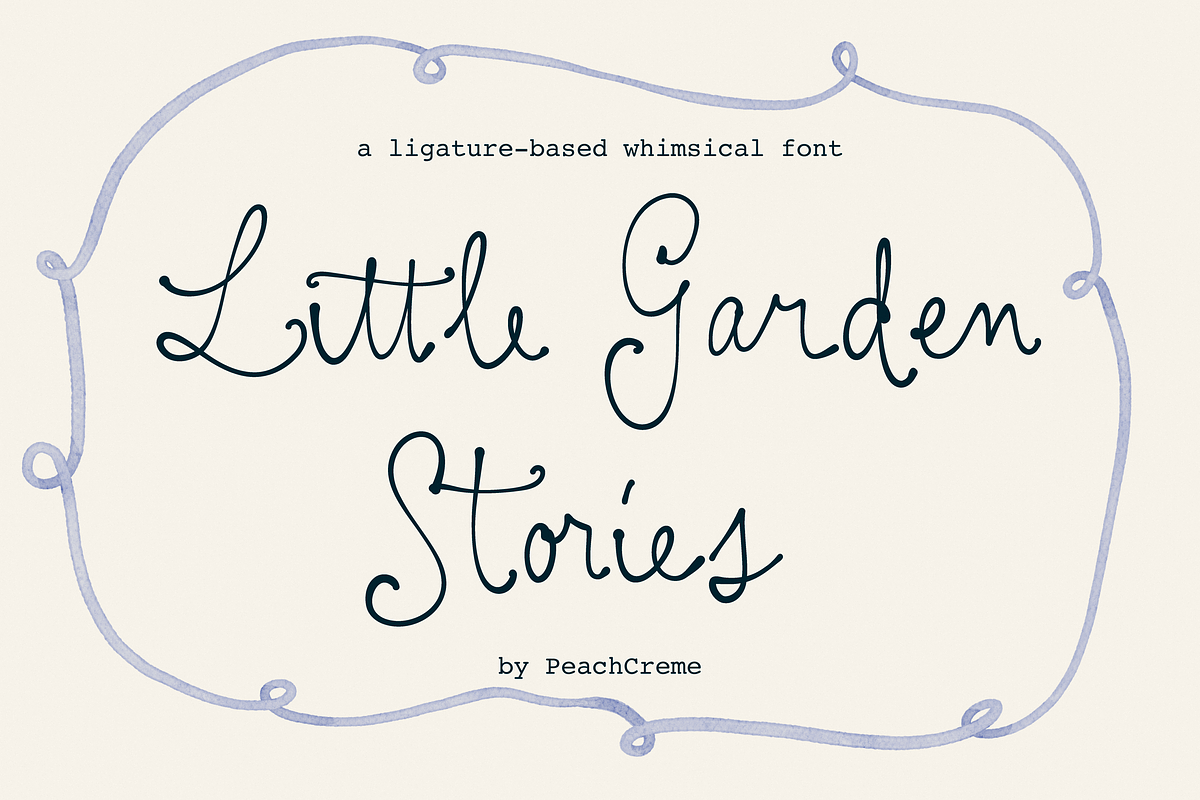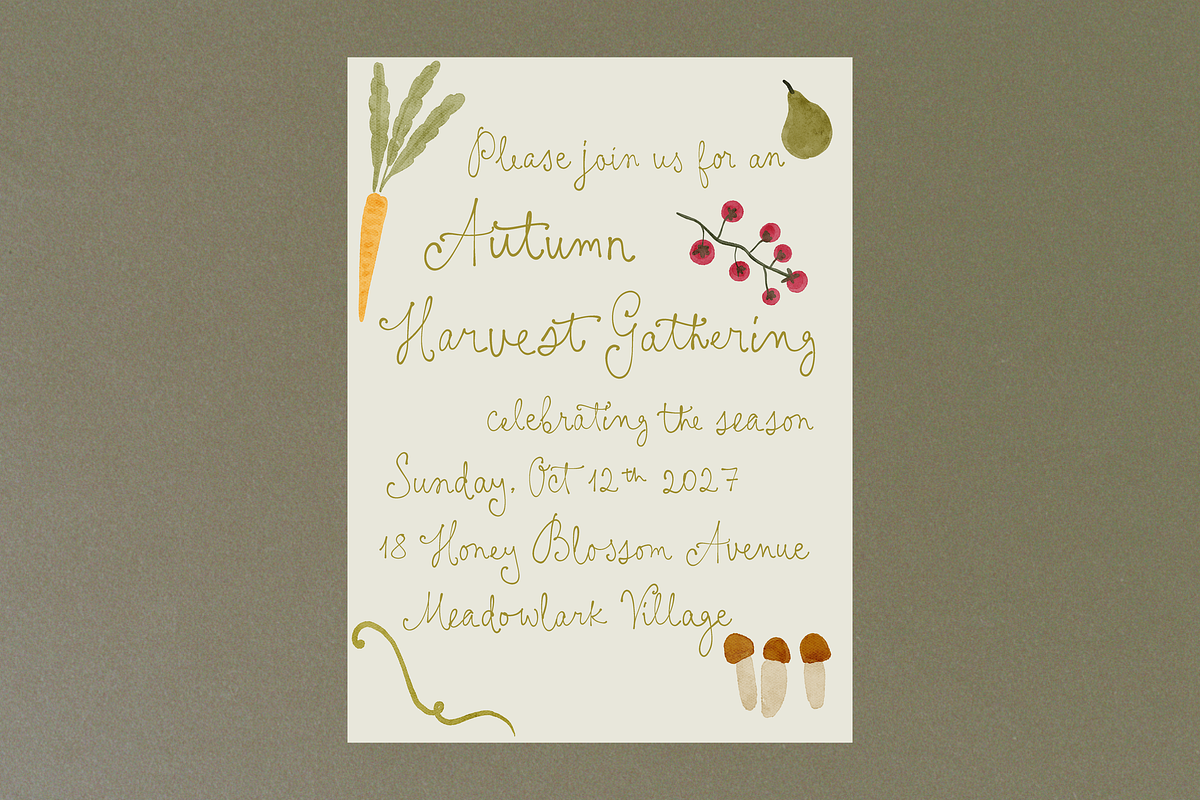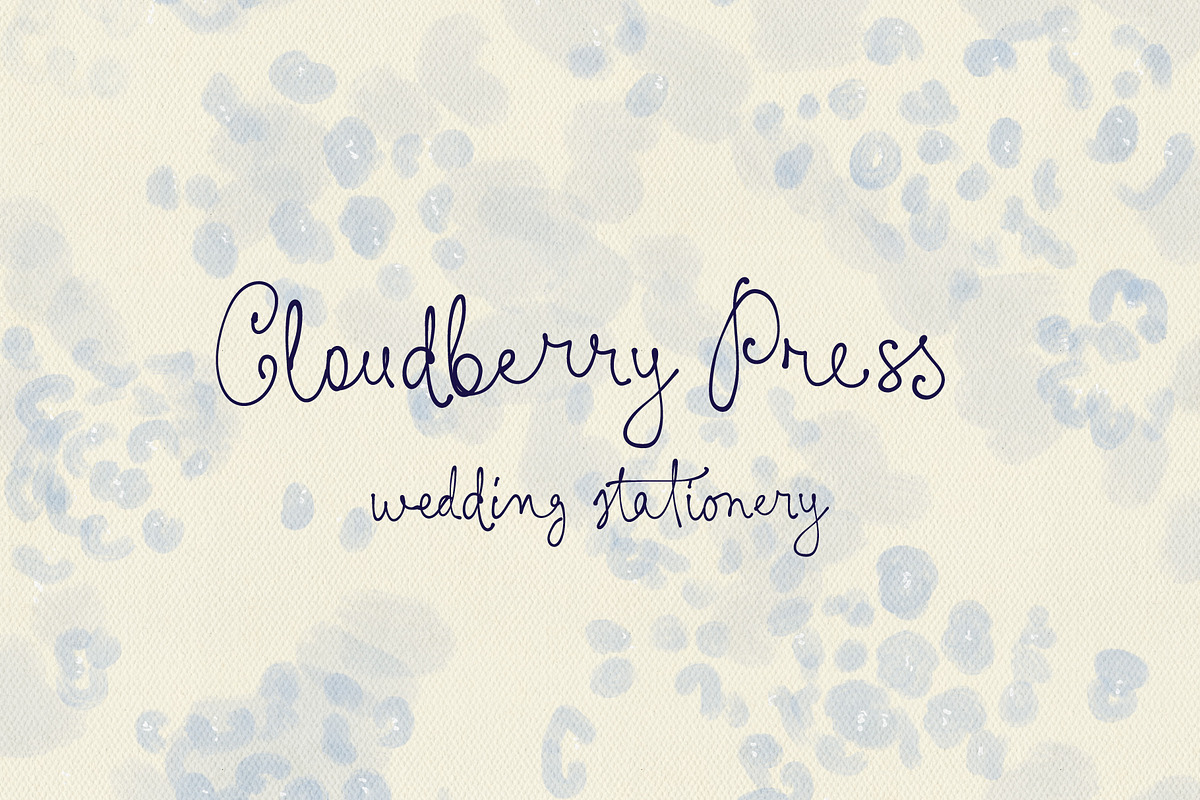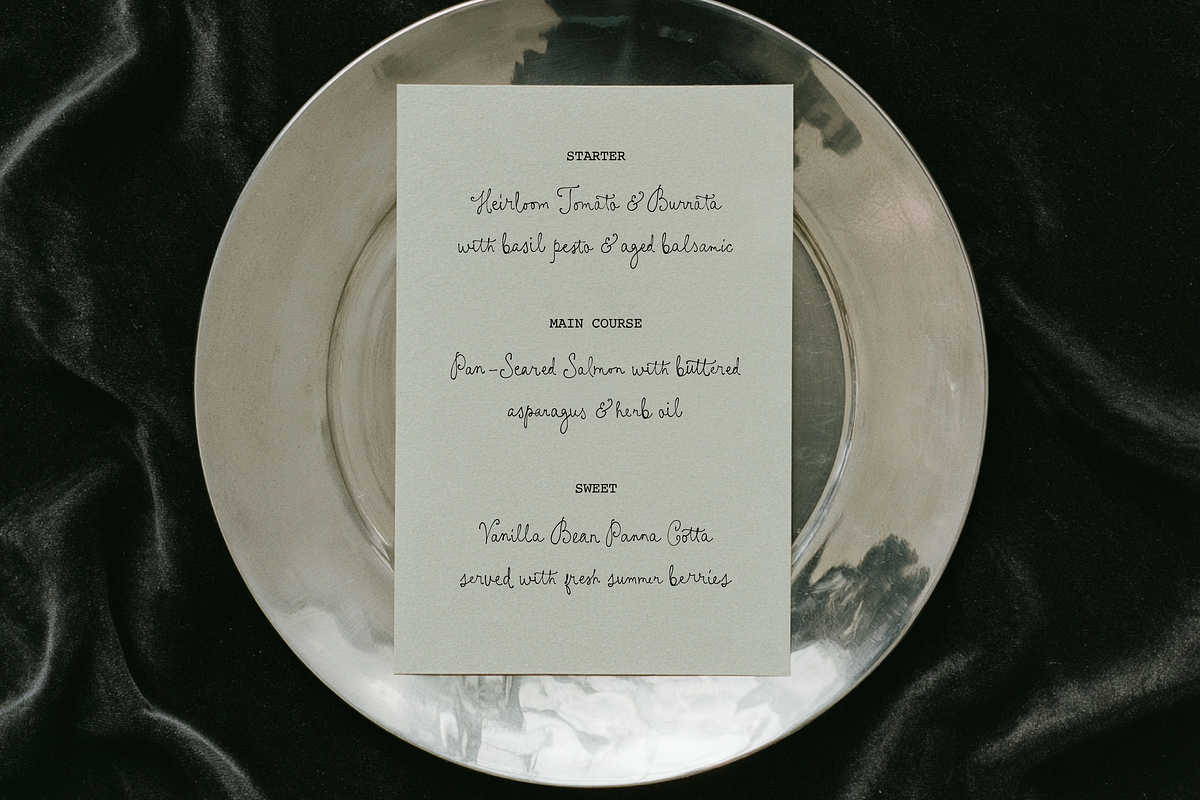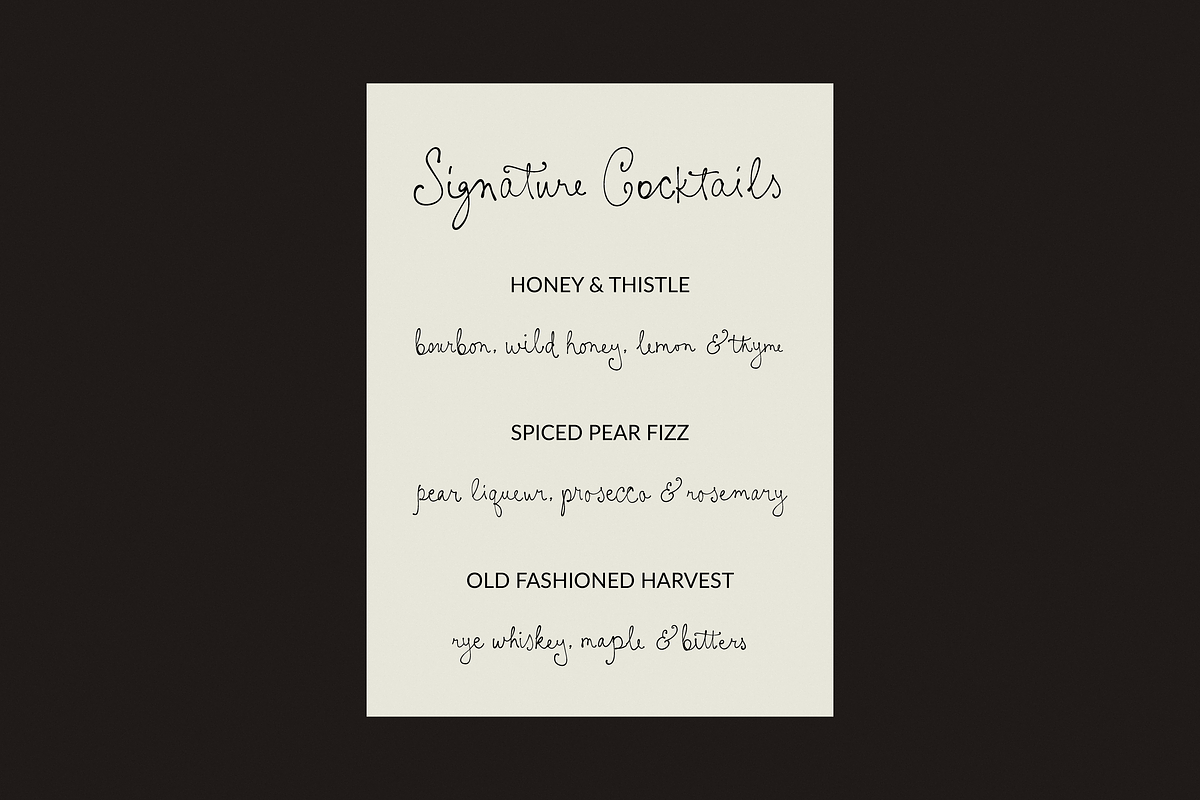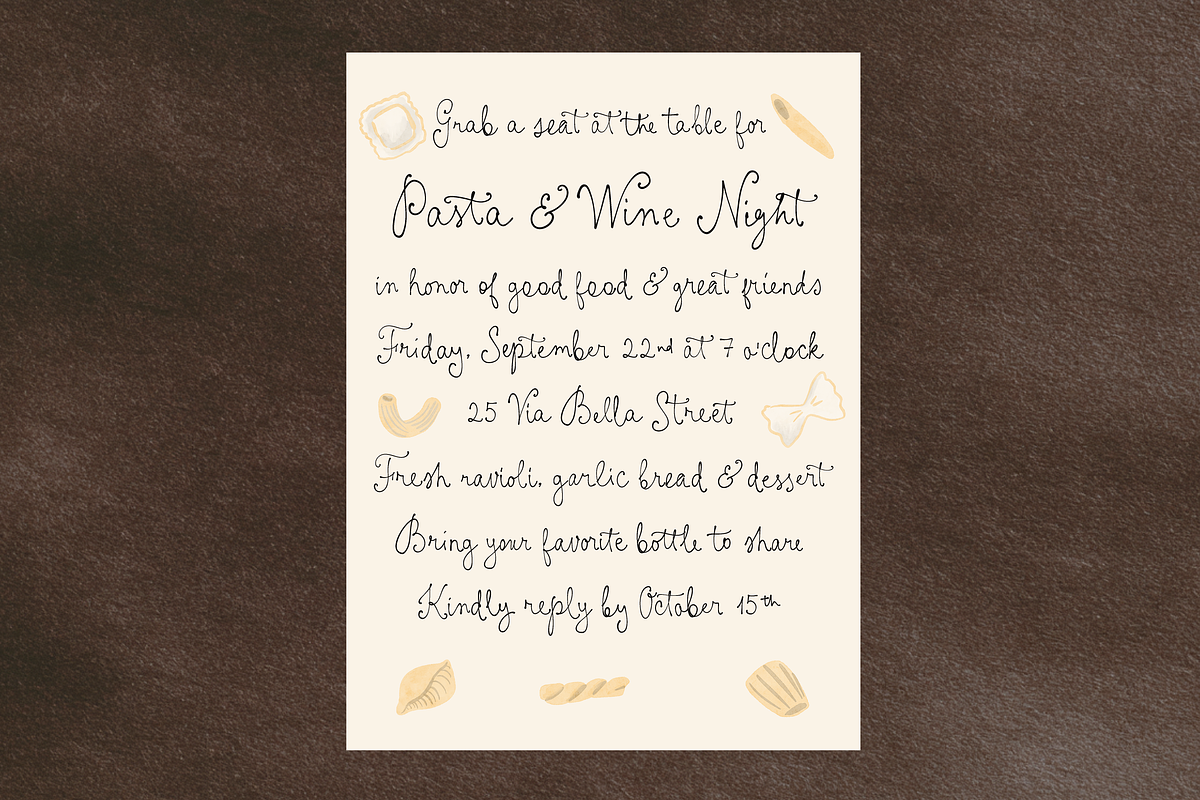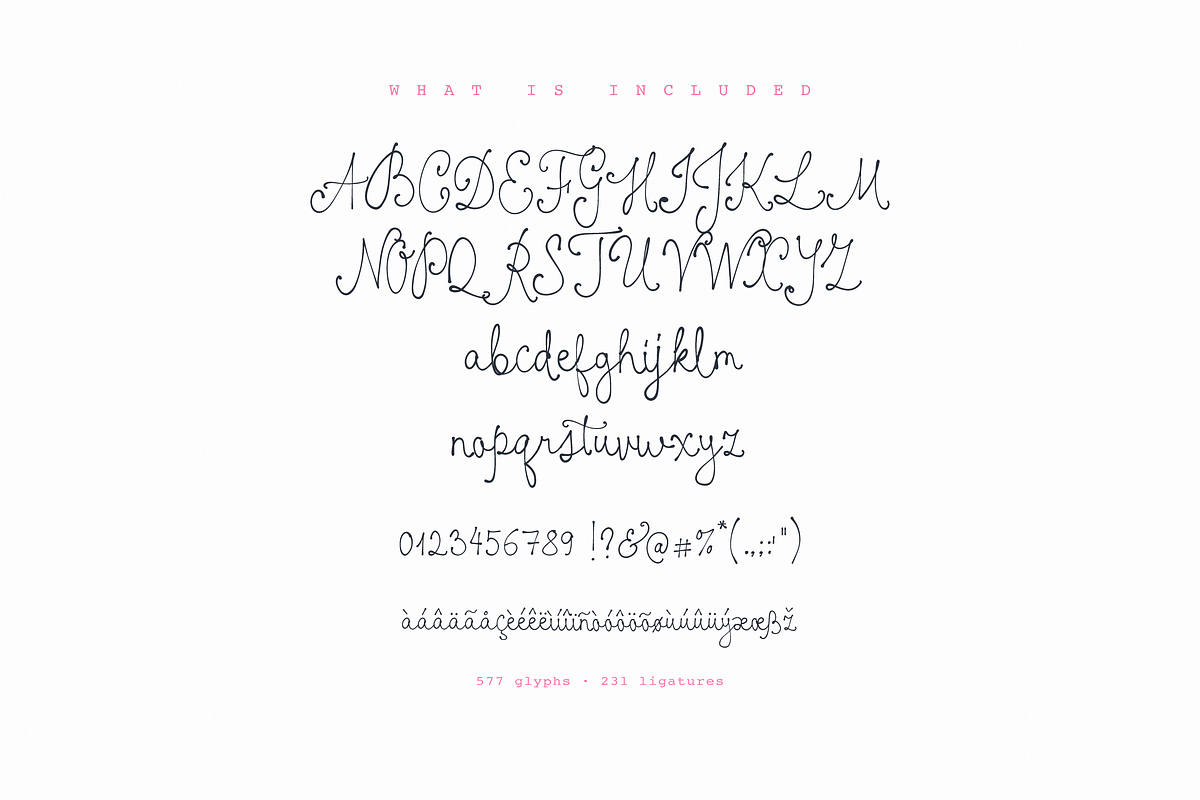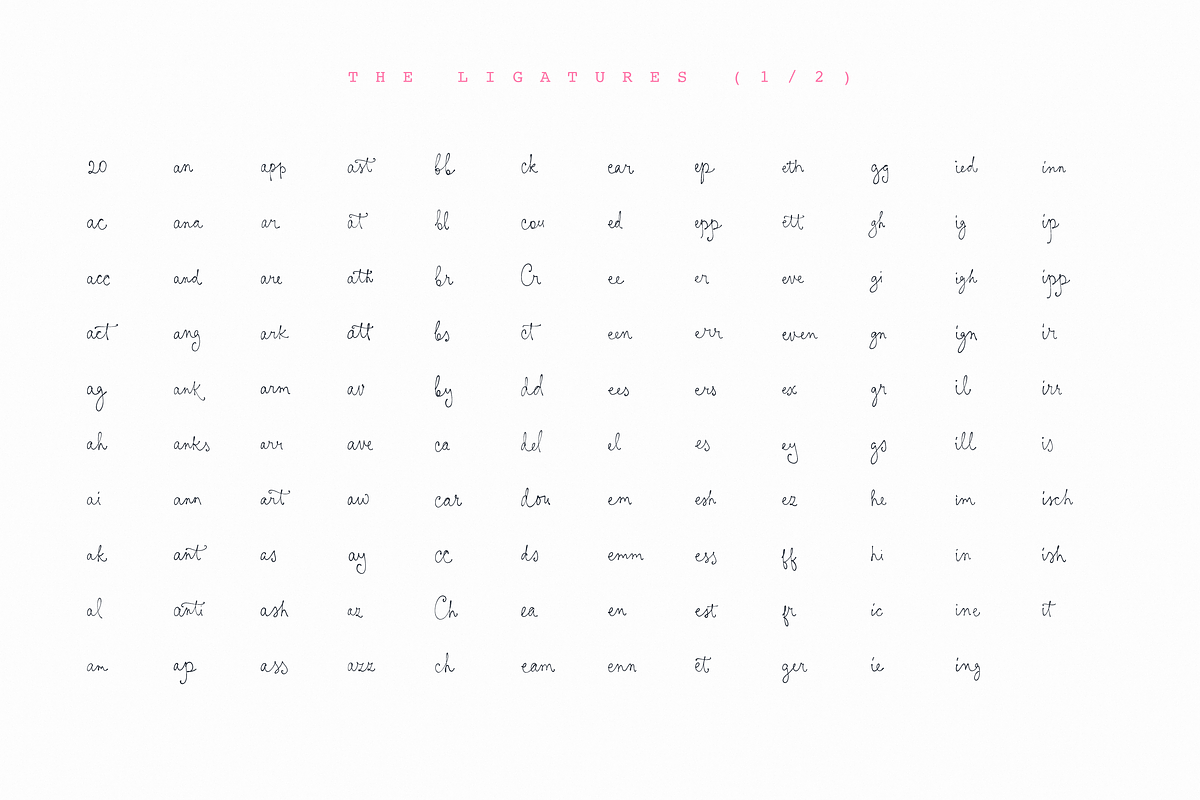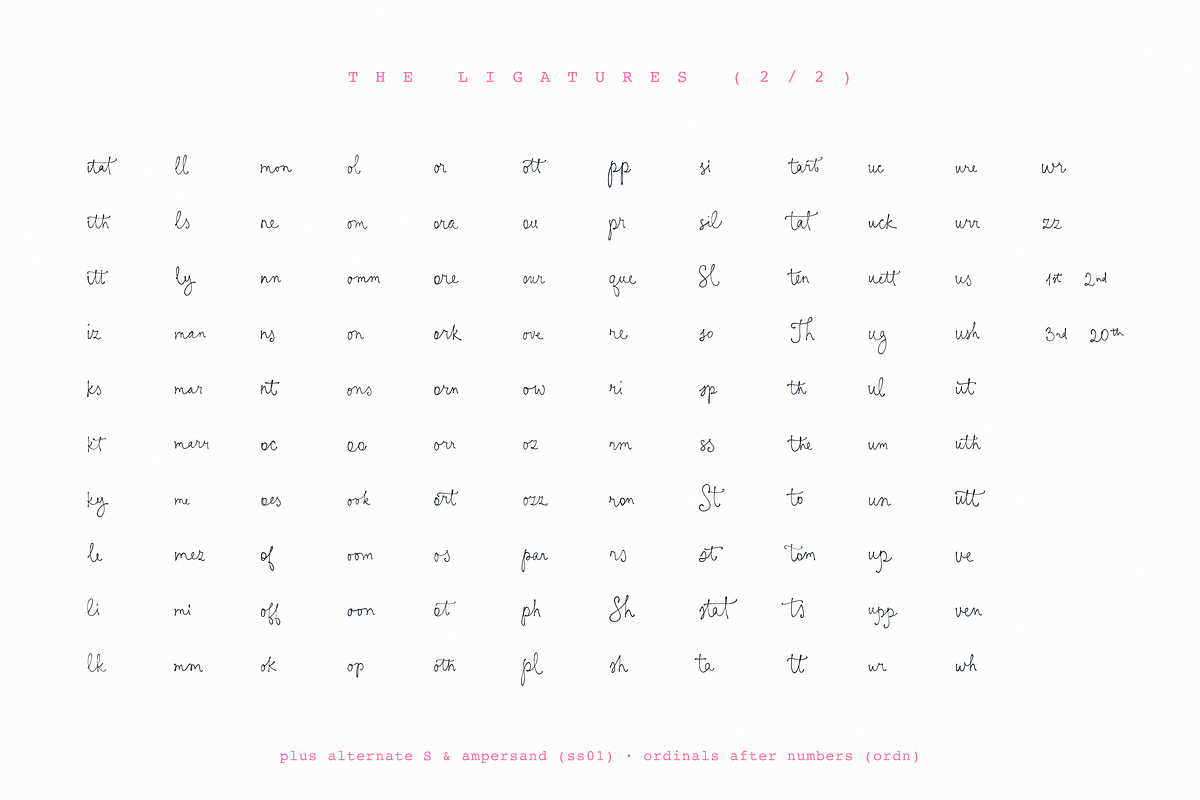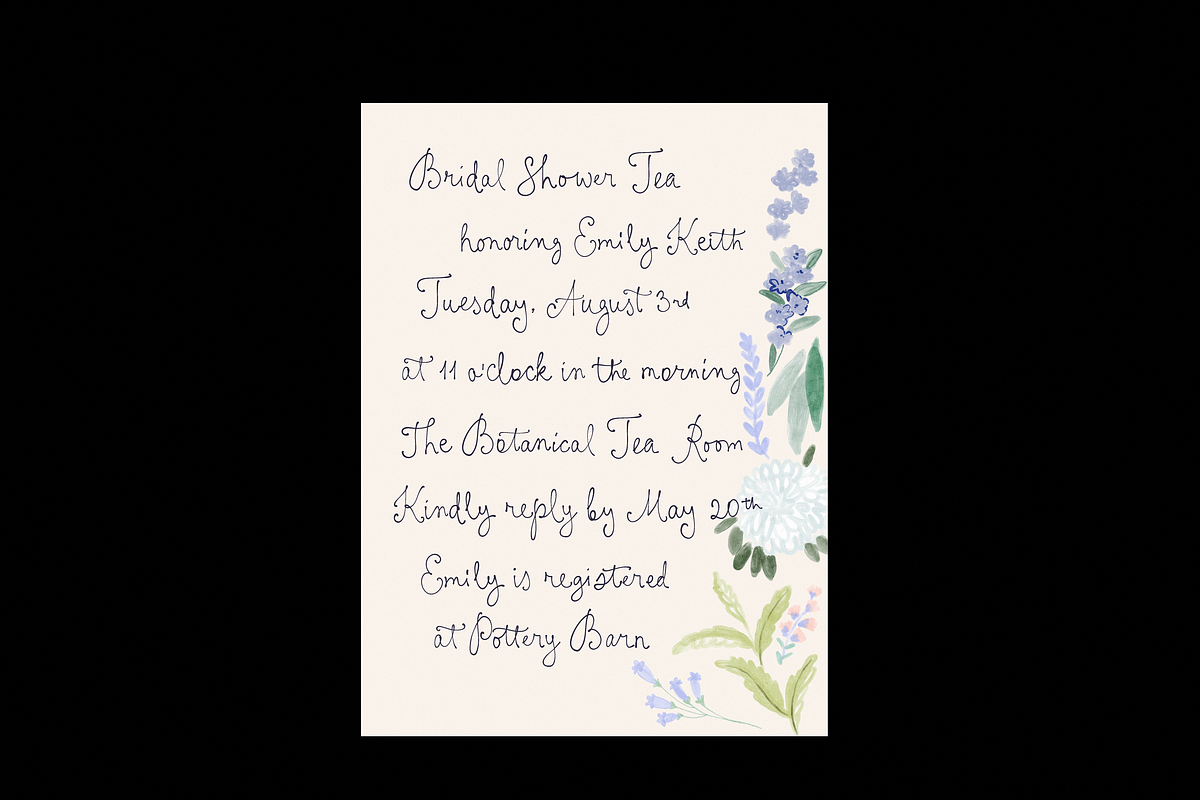
Little Garden Stories
Little Garden Stories is a whimsical, ligature-based script font with an authentic handwritten feel. Designed to capture the charm of real pen-on-paper, it automatically transforms standard letter pairs and common word endings into fluid handwriting using 231 ligatures and automatic ordinals (1st, 2nd, 3rd, 20th), all of which are fully PUA encoded.